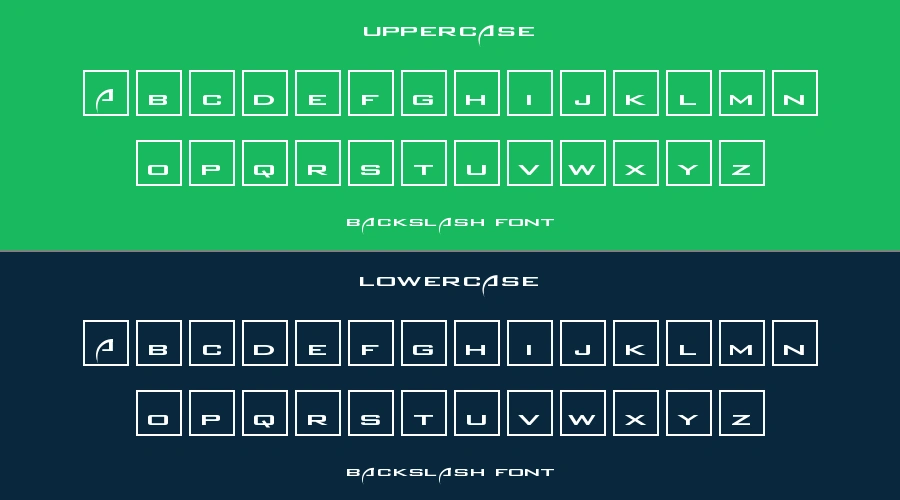
About Backslash Font
Backslash Font stands out for its distinctive combination of open counters and visual appeal. Ideal for product naming, it provides the functionality and design heritage that professional projects demand. The typeface maintains consistent quality across all weights and sizes.
Key features include refined systematic design and practical expert sets, enhancing typographic expression. In historical documents applications, Backslash Font demonstrates exceptional output consistency. The contrast level and engineering heritage contribute to its distinctive character and professional appeal.